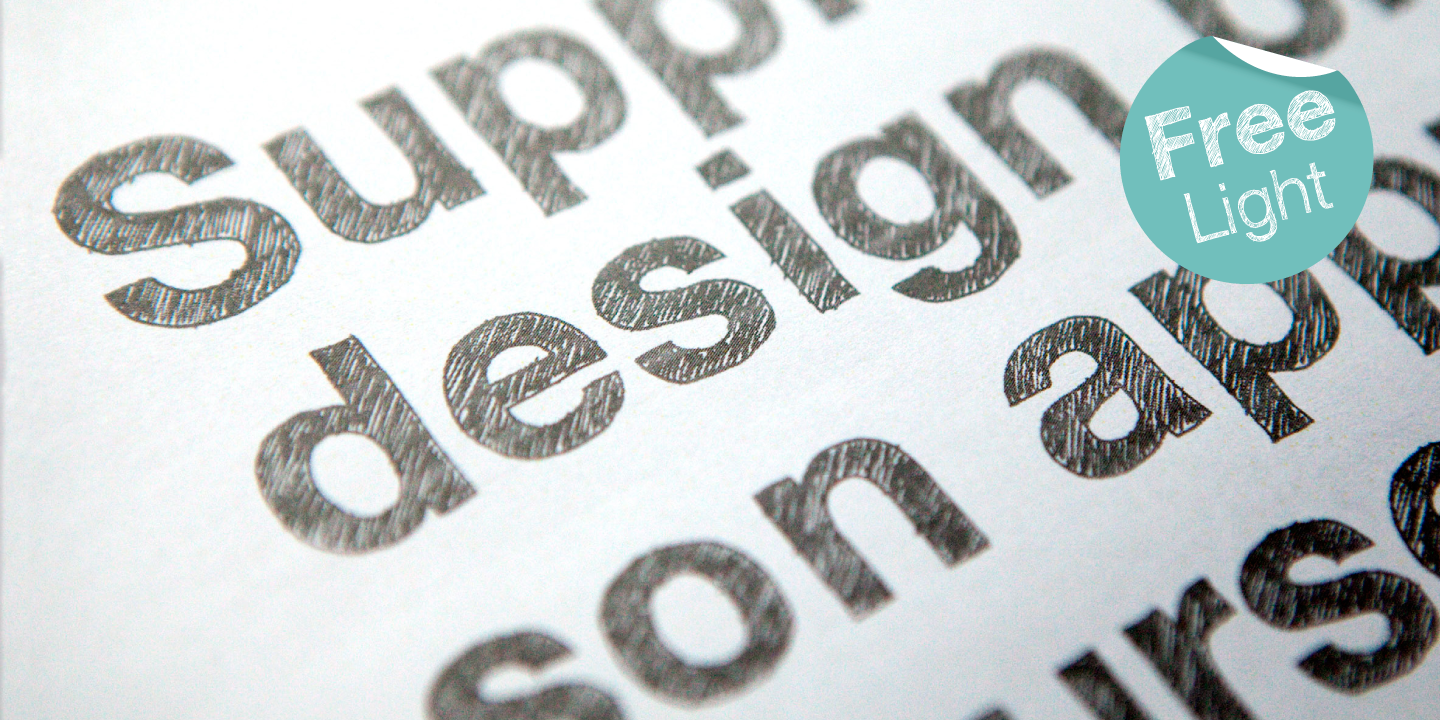
Sketchetik Font Free Download is a unique hand-drawn typeface that brings a raw, authentic, and artistic vibe to your designs. With its sketchy lines and casual style, Sketchetik mimics the look of pencil-drawn text—perfect for creative projects, educational materials, playful branding, and DIY-themed visuals.
This font stands out in a digital world by offering a more personal and handcrafted feel. Sketchetik Font Free Download blends informal charm with legibility, making it ideal for posters, children’s books, comic-style designs, and concept art presentations.
Add some hand-drawn flair to your next design with Sketchetik Font Free Download. Whether you're sketching out a new idea or giving your brand a playful edge, this font adds a human touch that speaks volumes.